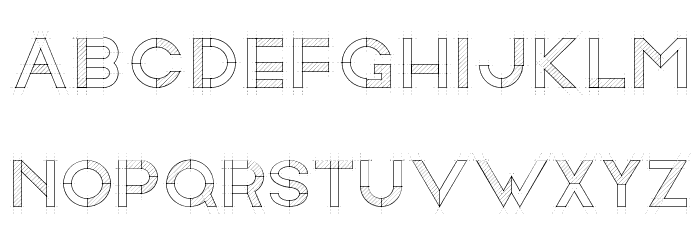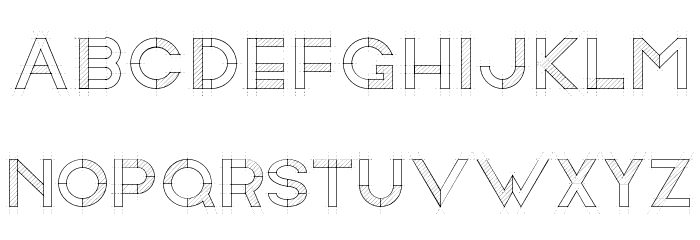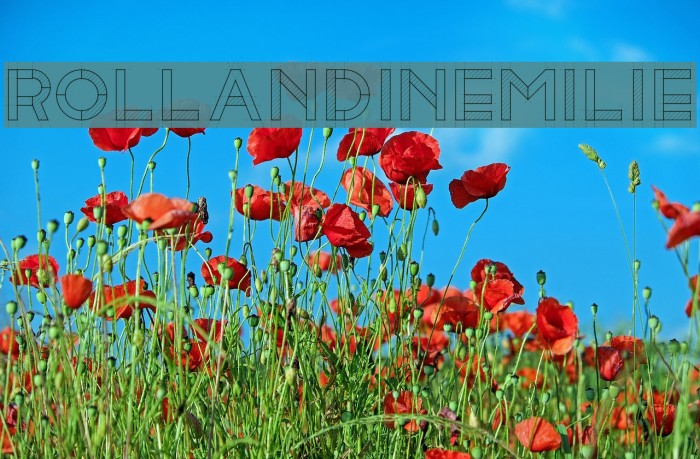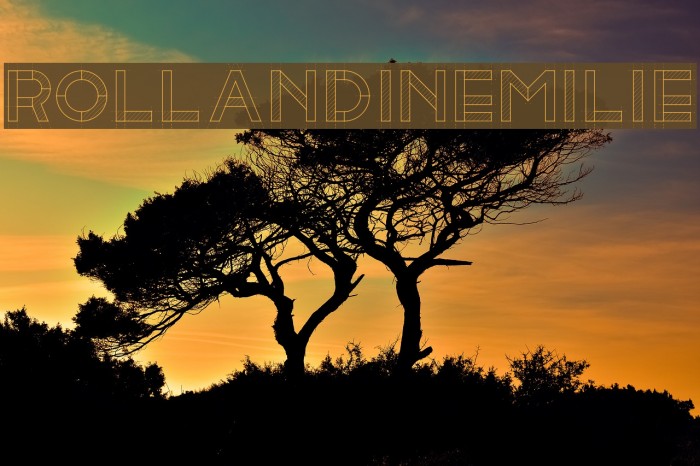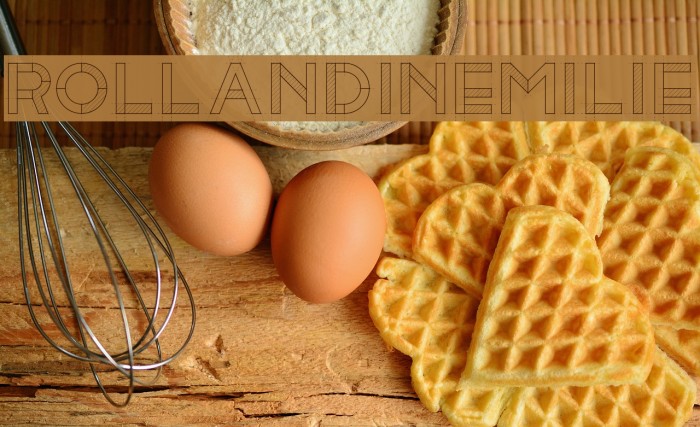
RollandinEmilie Font
This font features a geometric, architectural style with clean, precise lines and a structured appearance. The characters are constructed with a grid-like pattern, giving them a technical and modern feel. The uppercase letters are uniform in height and width, creating a harmonious and balanced look. The font's design is reminiscent of blueprints or technical drawings, with a focus on clarity and precision. It is ideal for projects that require a contemporary and professional aesthetic, such as architectural presentations, technical documents, or modern branding.
A geometric, architectural font with a modern, technical style.
- Proposed Projects: Ideal for architectural presentations, technical documents, modern branding, and design projects requiring precision.